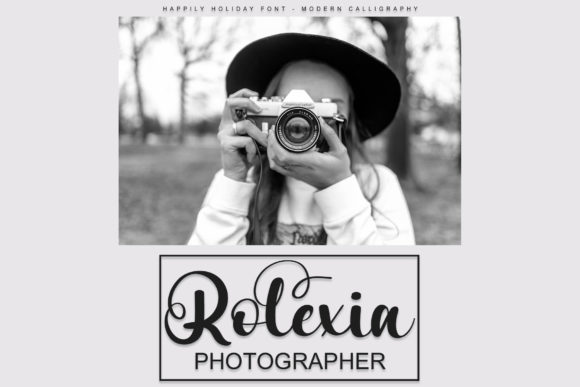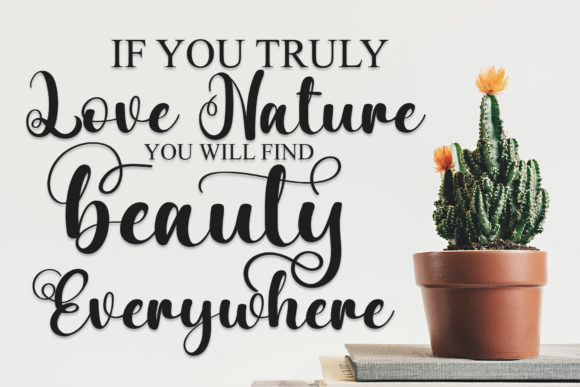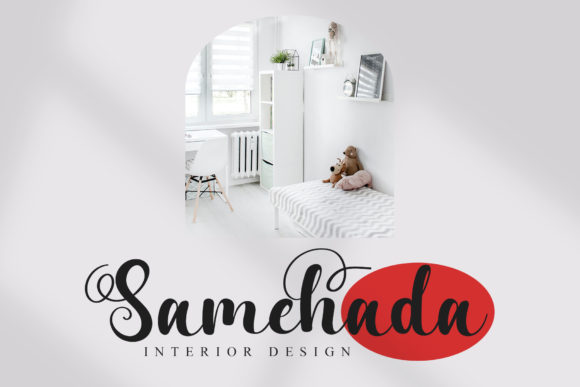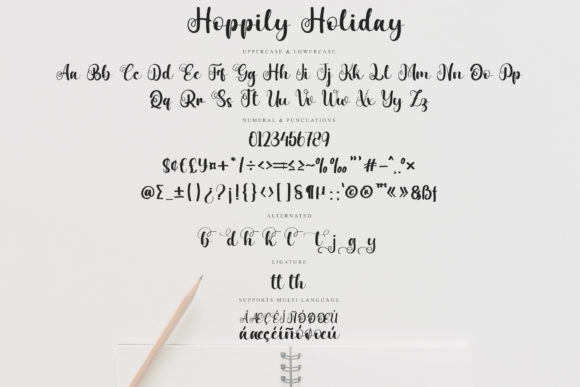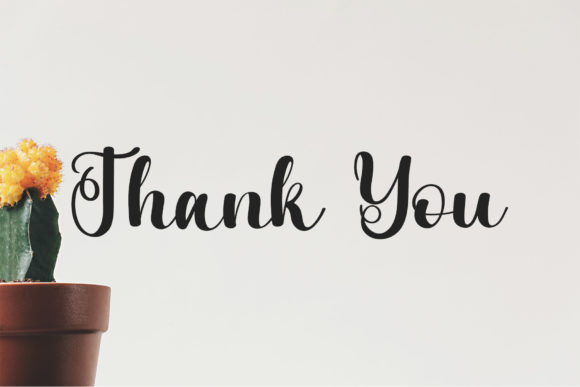
Introduction to Happily Holiday Font
Happily Holiday is a romantic and sweet calligraphy typeface with characters that dance along the baseline.
Key Features of Happily Holiday Font